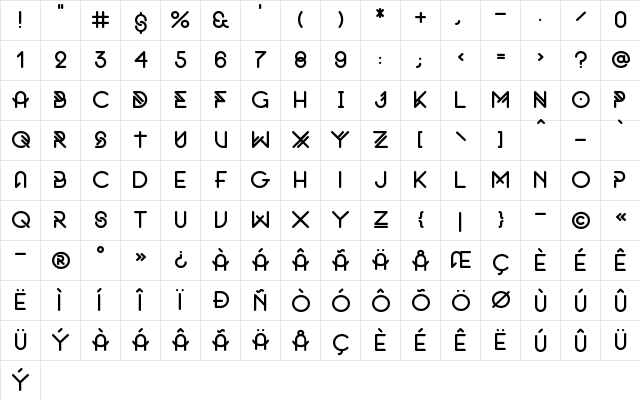
Original by fnkfrsh Regular
| Designer | Fnkfrsh |
Design Context for Original by fnkfrsh Typeface
Original by fnkfrsh takes a measured approach to typography — its balanced proportions and neutral character make it a reliable workhorse for both digital and print work.